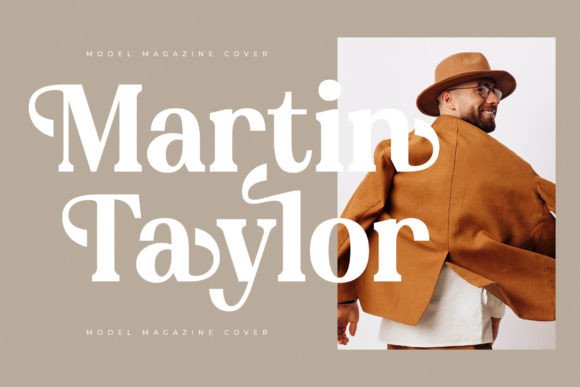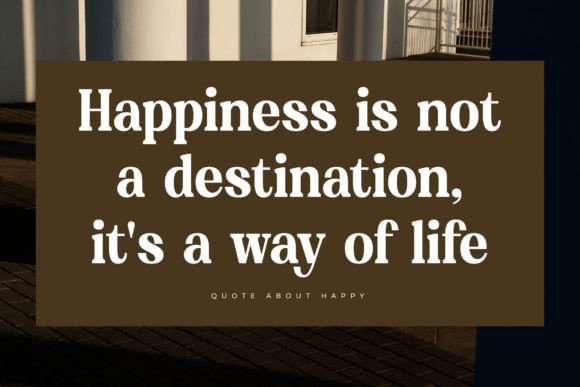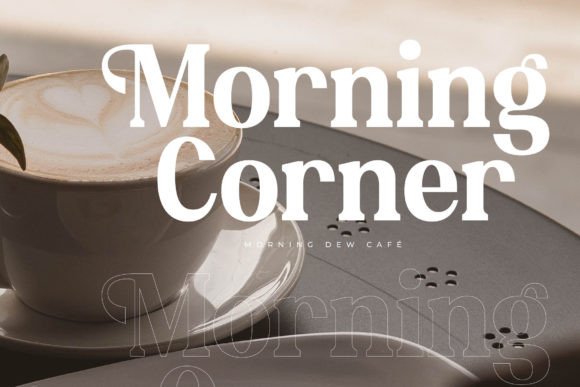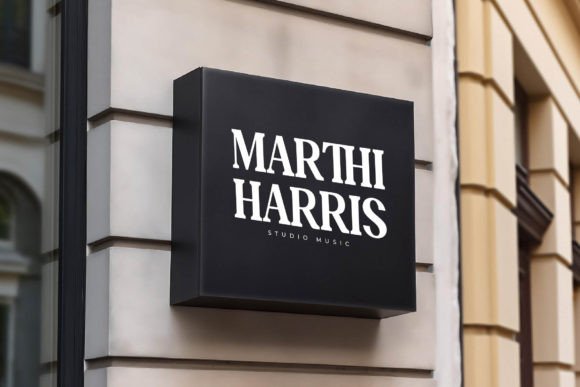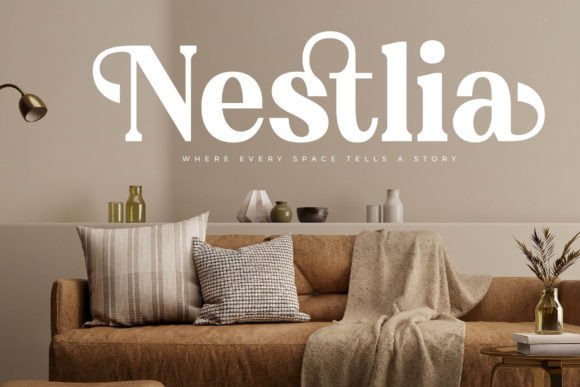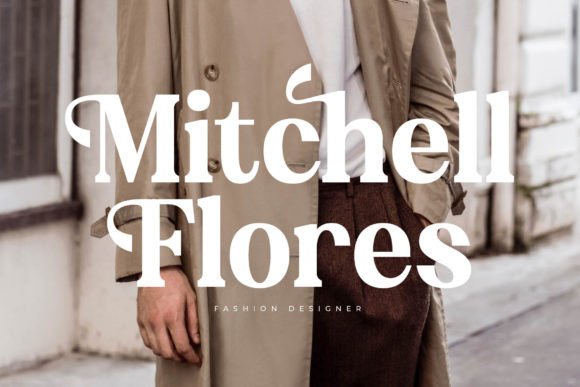
Introducing Braden Font: Elevate Your Designs with Luxury Serif Elegance
In the world of typography, a font can make or break the aesthetic of a design project. For designers and crafters seeking to infuse their creations with a touch of luxury and sophistication, the Braden Font is an exceptional choice. This modern serif font, crafted by Letterena, is tailored to bring an air of elegance and refinement to a wide array of projects, from logos and branding to packaging, posters, and beyond.
What is Braden Font?
Braden Font is a luxury serif typeface designed to cater to the needs of designers who aim to create visually stunning and high-end projects. Its modern serifs and clean lines make it versatile enough to be used in various applications, ensuring that your designs stand out with a unique elegance.
Key Features of Braden Font
- Modern Serif Design: Braden boasts a contemporary serif design that adds a touch of sophistication to any project.
- Versatility: Its elegant and clean structure makes it suitable for a broad spectrum of design projects.
- Luxury Appeal: Perfect for projects that require a high-end feel, such as luxury branding, upscale product packaging, and premium advertising materials.
- Easy to Read: Despite its luxurious look, Braden maintains excellent readability, making it functional for both headlines and body text.
Use Cases for Braden Font
The versatility of Braden Font makes it an invaluable asset for designers and crafters working on a variety of projects. Here are some ideal use cases:
- Logos and Branding: Create a lasting impression with a logo that exudes luxury and elegance.
- Product Packaging: Elevate your product’s presentation with sophisticated packaging designs.
- Marketing Materials: Enhance your advertising materials, such as brochures, flyers, and posters, with a touch of class.
- Stationery: Add a luxurious feel to your business cards, letterheads, and envelopes.
- Digital Content: Use Braden Font in your digital content, such as website headers, social media graphics, and email newsletters, to convey a sense of premium quality.
- Crafting Projects: For crafters, Braden can add a professional and elegant touch to DIY projects like custom mugs, t-shirts, and home decor items.
Why Choose Braden Font?
In a sea of fonts, Braden stands out for its unique blend of modernity and luxury. Here are a few reasons why designers and crafters are gravitating towards this elegant typeface:
- Unique Aesthetic: Braden offers a distinctive look that can help your designs stand out from the competition.
- High Versatility: Its adaptability across different mediums and applications makes it a practical choice for a wide range of projects.
- Professionalism: The font’s luxurious feel can add a professional edge to your work, making it more appealing to clients and audiences.
Braden Font, with its modern serif design and luxury appeal, is an excellent addition to any designer’s or crafter’s toolkit. Its versatility and aesthetic make it suitable for a myriad of projects, from luxury branding and marketing materials to crafting and DIY projects. By incorporating Braden Font into your work, you can elevate your designs, convey a sense of elegance and sophistication, and leave a lasting impression on your audience.